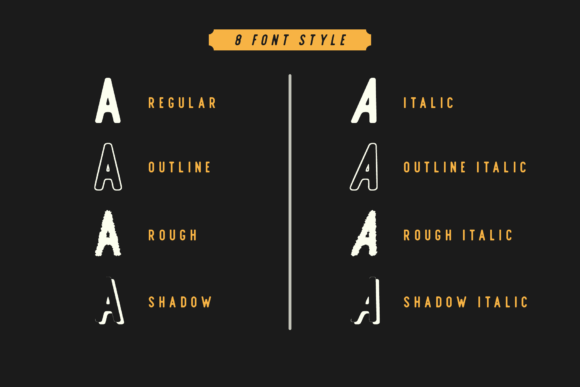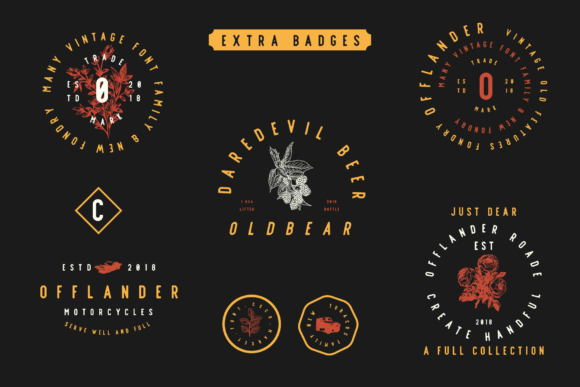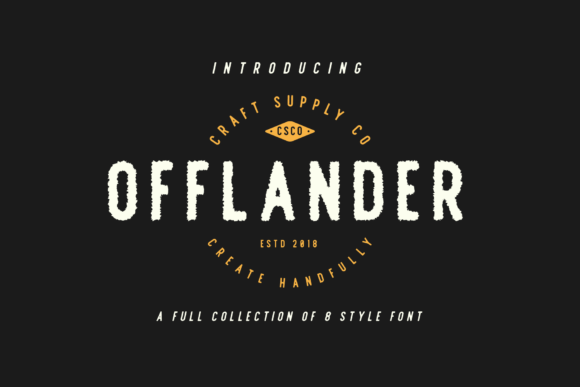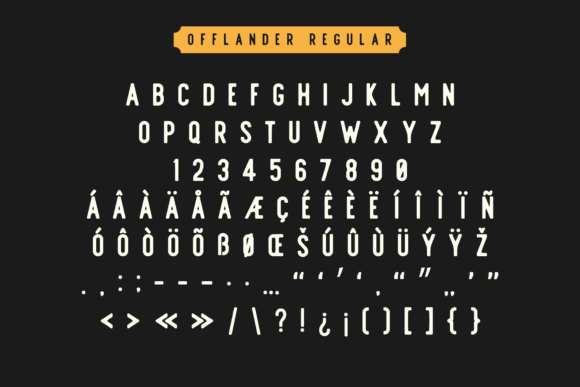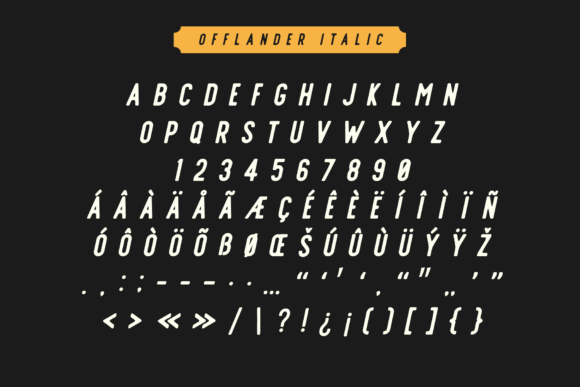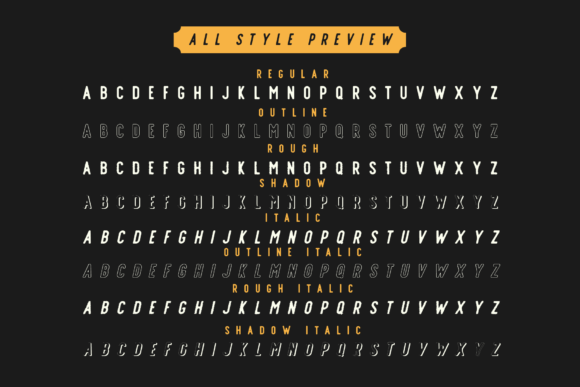
Introduction to Offlander Family Font
Have you ever stared at a blank canvas, itching to bring a design to life but struggling to find the right font to set the tone? You’re not alone. As designers, we’ve all been there – searching for the perfect typography to elevate our creative project and make it truly stand out. That’s where the Offlander Family Font comes in – an all caps font family of 8 that’s ready to breathe new life into your designs.
Key Features of Offlander Family Font
- High-quality, professional font perfect for any creative project, ideal as a design resource.
- Comes in 6 unique styles, including bold and italic variations, offering a range of options for your design needs.
- Unique characteristics include a mix of modern and vintage elements, creating a distinctive and eye-catching look for your creative project.
Honest Review: Offlander Family Font
As a designer, I’m always on the lookout for high-quality design resources to elevate my creative projects. Recently, I stumbled upon the Offlander Family Font, and I’m excited to share my thoughts on it.
- Beautiful, hand-drawn design that adds a personal touch to any project
- Includes a range of weights and styles to suit different design needs
- Limited language support, which may be a concern for international design projects
Overall, I’m impressed with the Offlander Family Font. Its unique design and high-quality features make it a valuable addition to any designer’s toolkit. While it may have some limitations, I believe it’s a great resource for designers looking to add a personal touch to their creative projects.
How to Use Offlander Family Font
For the most out of the Offlander Family Font, try pairing it with other unique design elements to create a truly one-of-a-kind look. Experiment with different font sizes, colors, and styles to find the perfect combination.
The Offlander Family Font is perfect for a variety of creative projects, including logos, business cards, posters, and more. Its unique style and high-quality design make it a great choice for any design project.
Alternatives to Offlander Family Font
Open Sans is a popular, high-quality sans-serif font suitable for a wide range of creative projects. It is highly legible and works well in both print and digital designs. Open Sans is a free download and can be easily customized to suit various design needs.
Compared to Offlander Family Font, Open Sans is more versatile and can be used in a variety of contexts, from body text to headings. It is also more modern and sleek, making it a great choice for contemporary design projects.